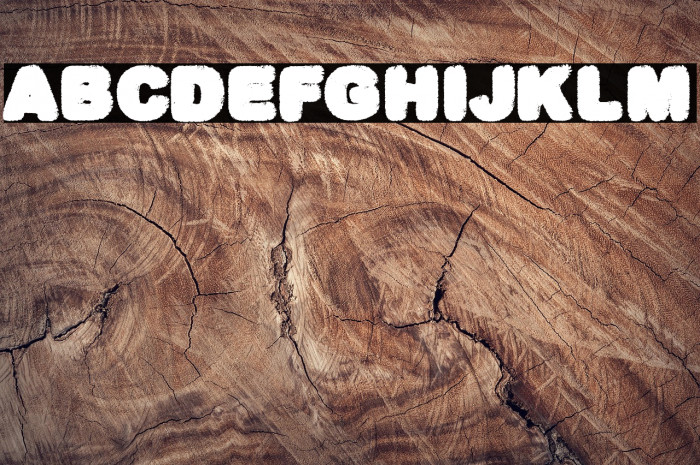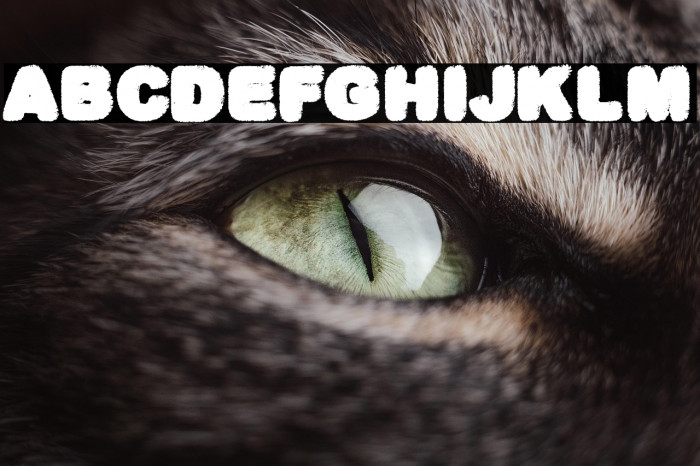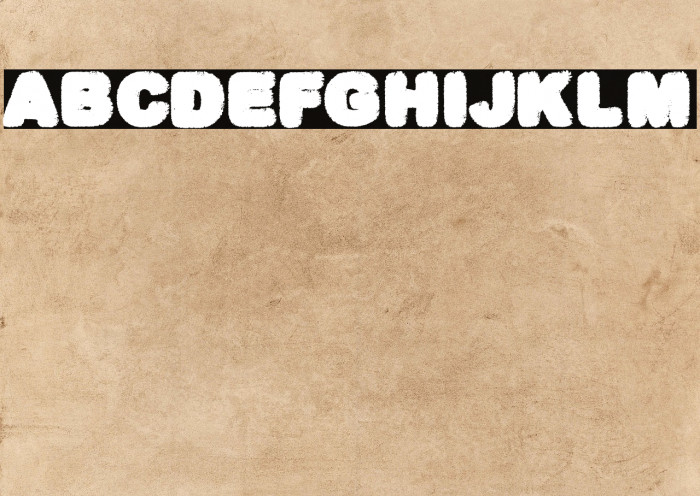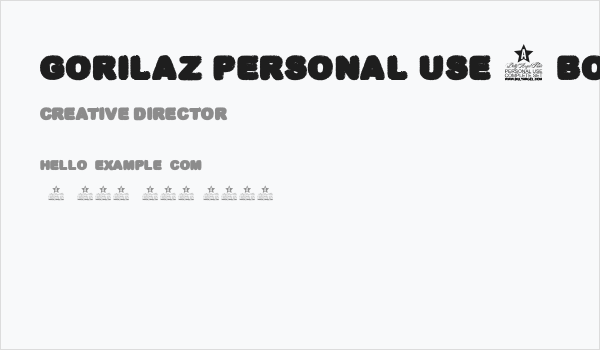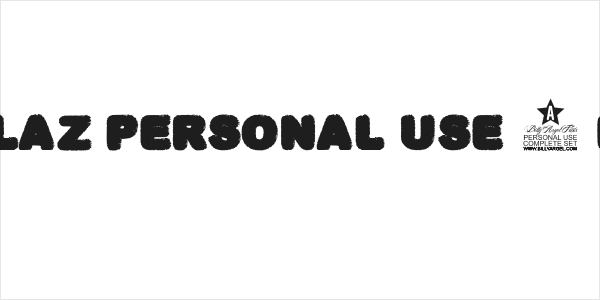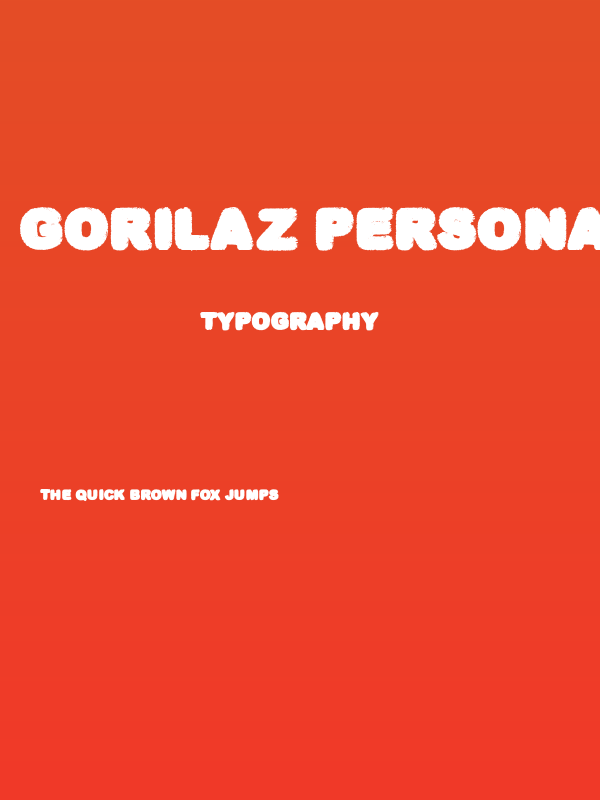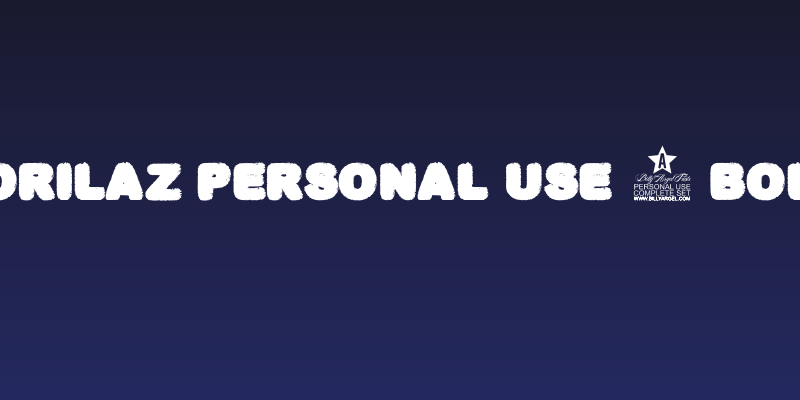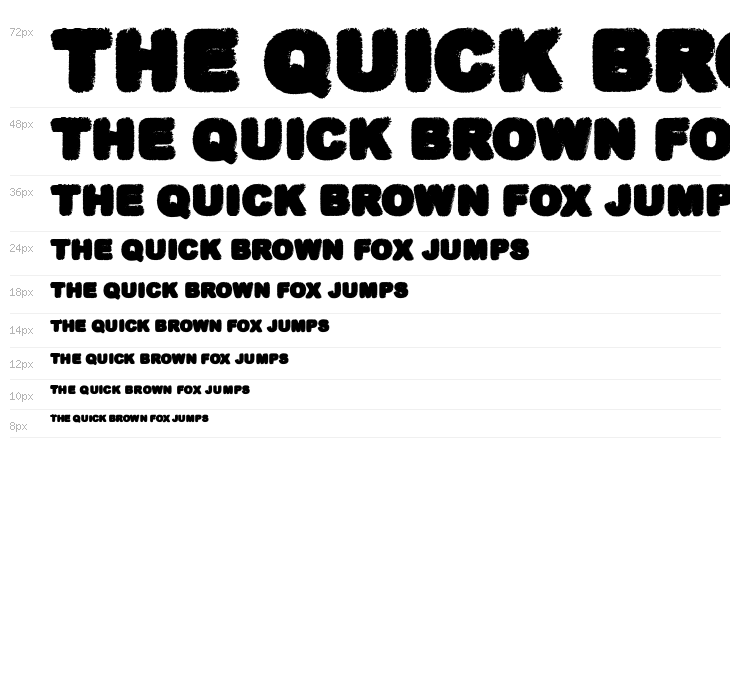
GORILAZ PERSONAL USE 1 Bold Font
GORILAZ PERSONAL USE 1 Bold Description
This font features a bold, textured style with a distressed appearance, giving it a rugged and dynamic look. The characters are thick and robust, with a slightly uneven texture that adds a sense of movement and energy. The uppercase letters are prominent and impactful, making them suitable for attention-grabbing designs. The font's unique texture suggests a hand-crafted or vintage feel, making it ideal for projects that require a bold statement with a touch of character.
| Proposed Projects | Ideal for posters, album covers, branding projects, and any design requiring a bold, vintage touch. |